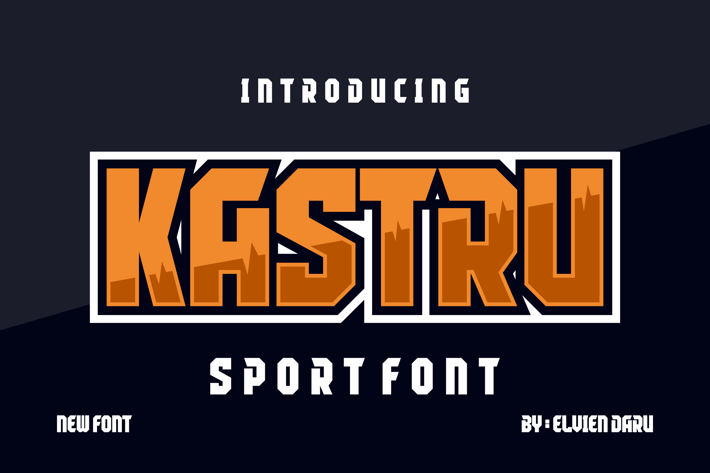
Kastru - Bold Sport Font
Perfectly suited on print/screen. itβs perfect for Branding, name card, poster, logo, magazine,
cover, banner, t-shirt and headers, or even large-scale artwork.